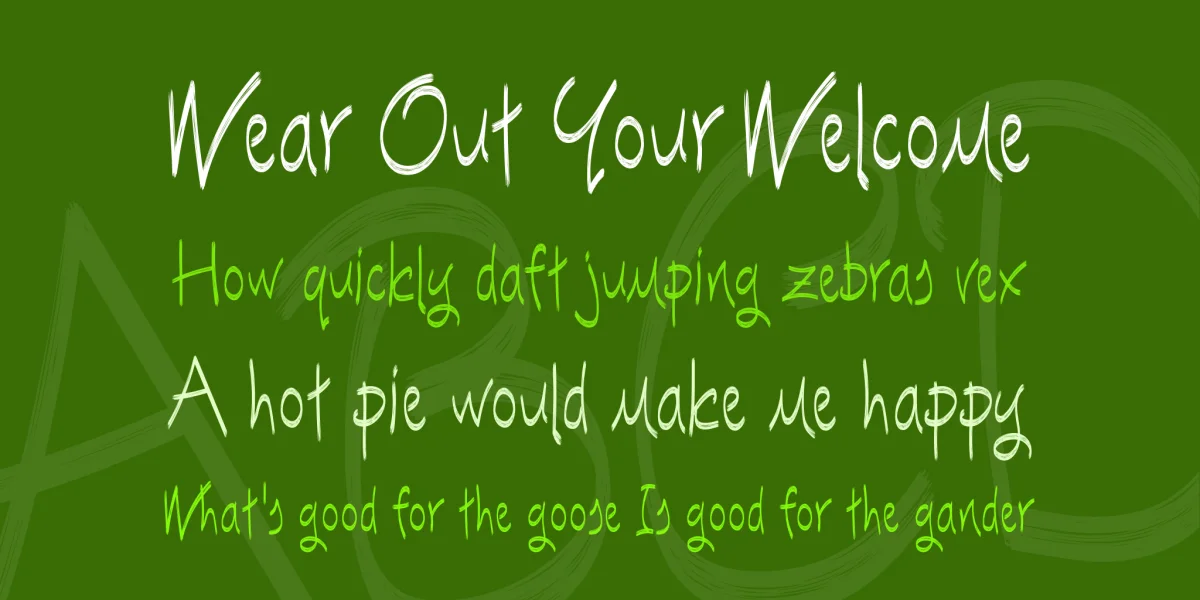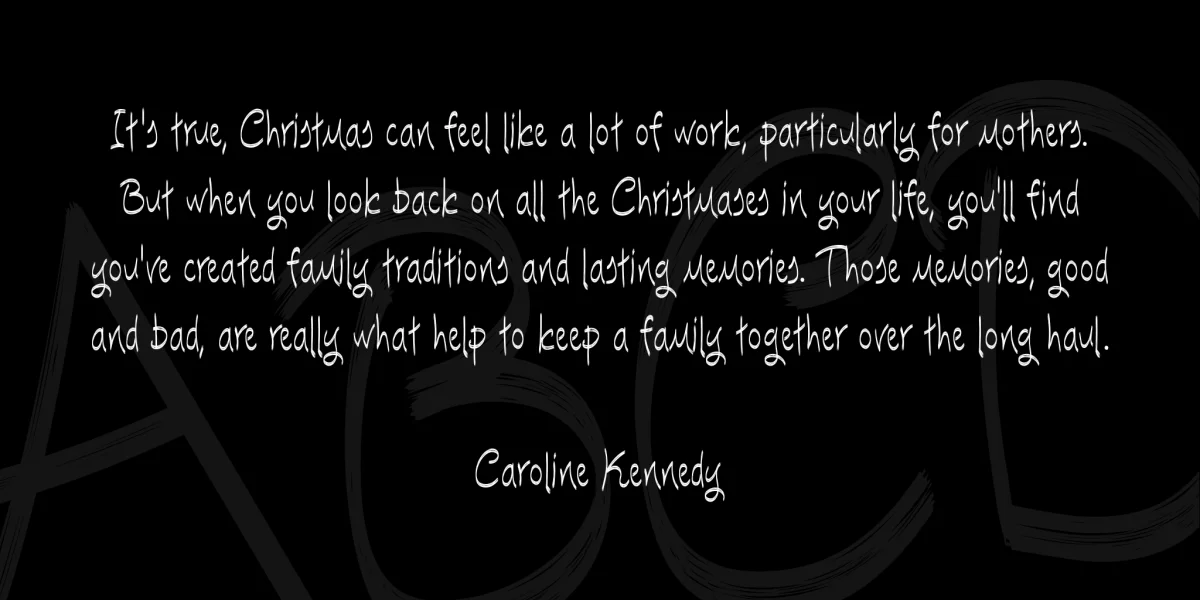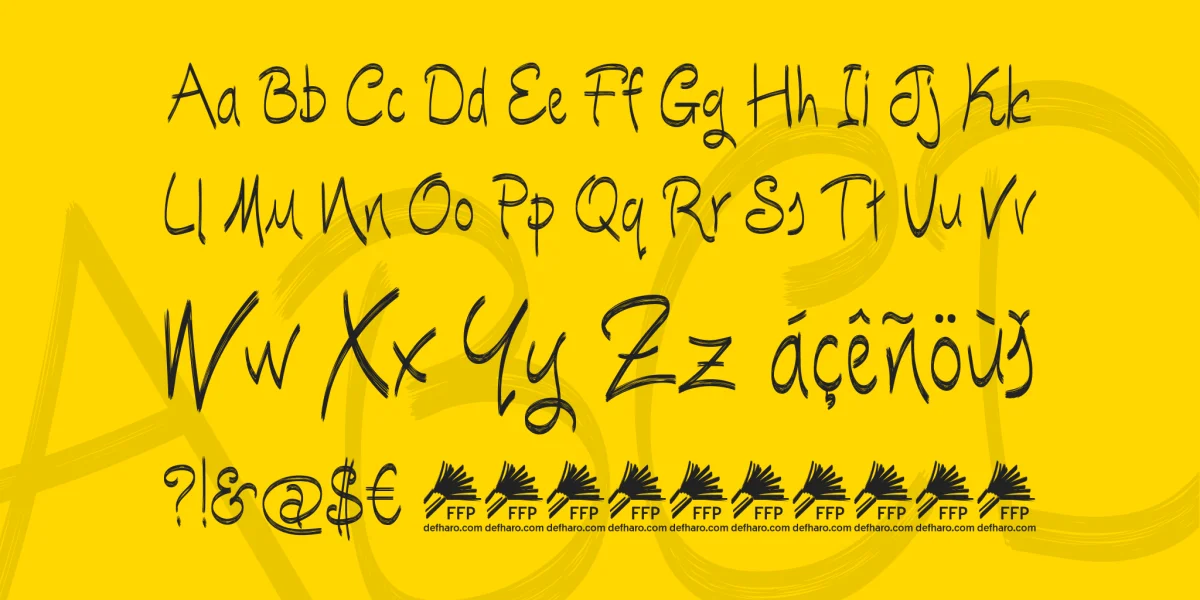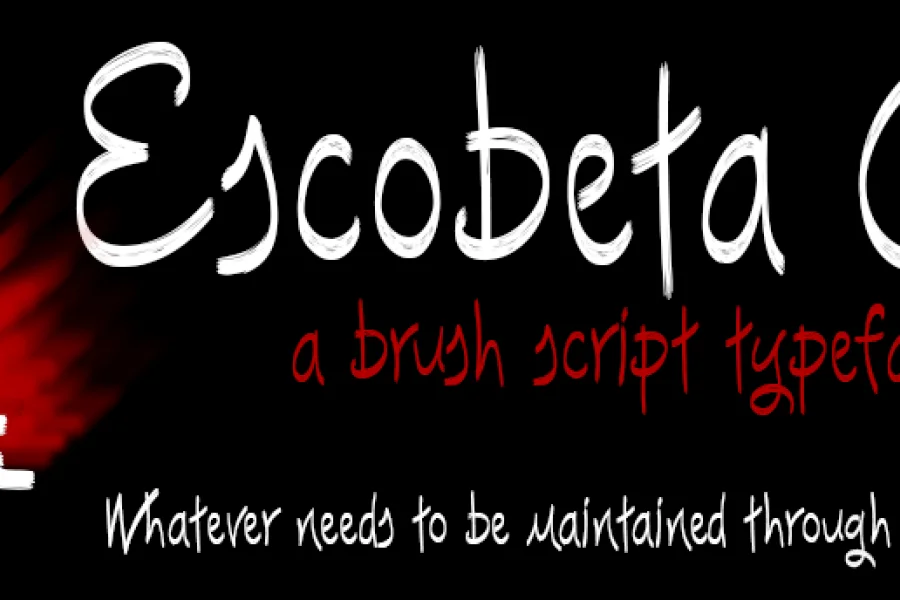
Escobeta One is a disconnected handwritten typography made with brush bristles, is perfect for designing posters, catchy headlines, commemorations, invitations or editorial design.